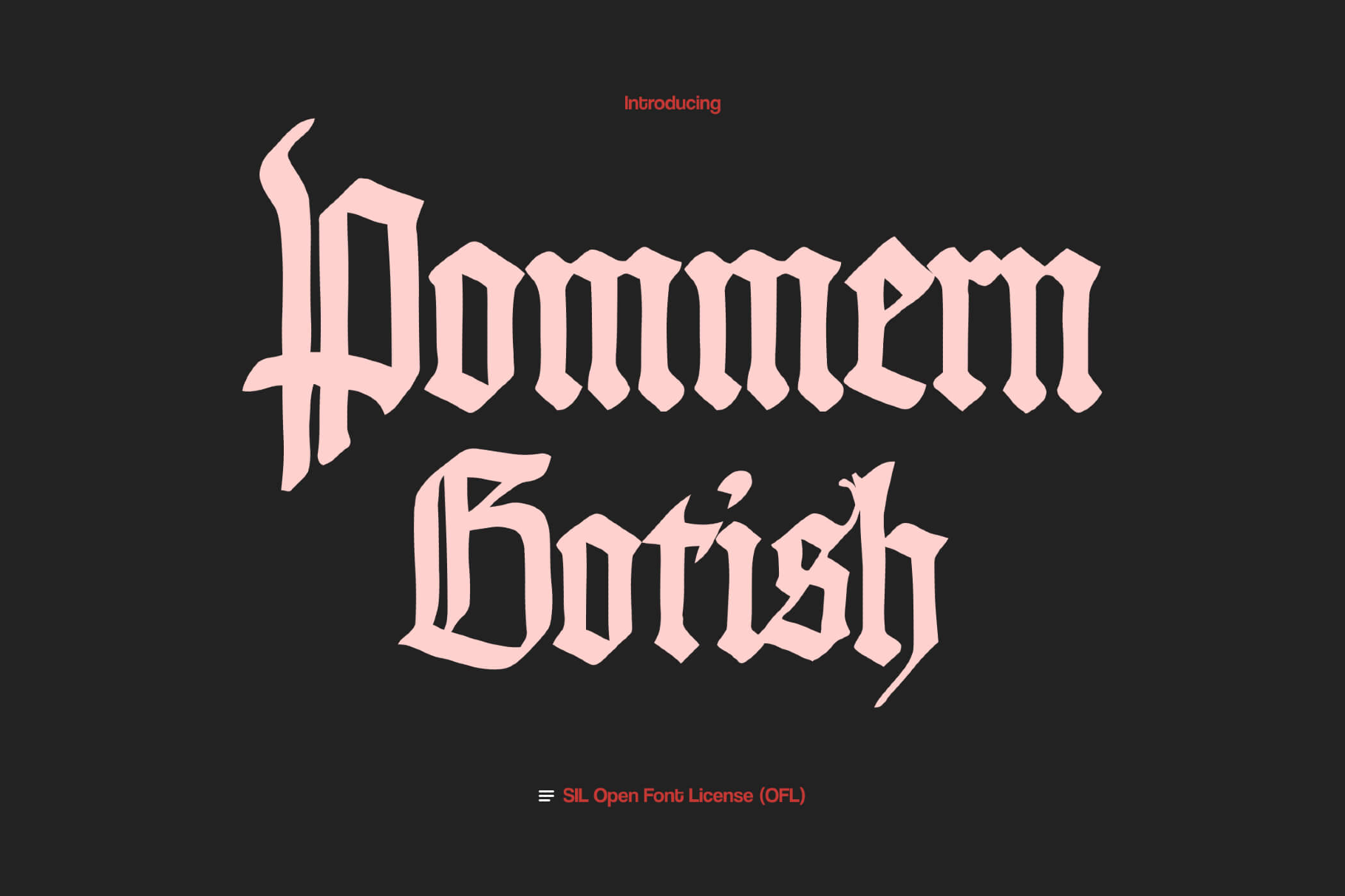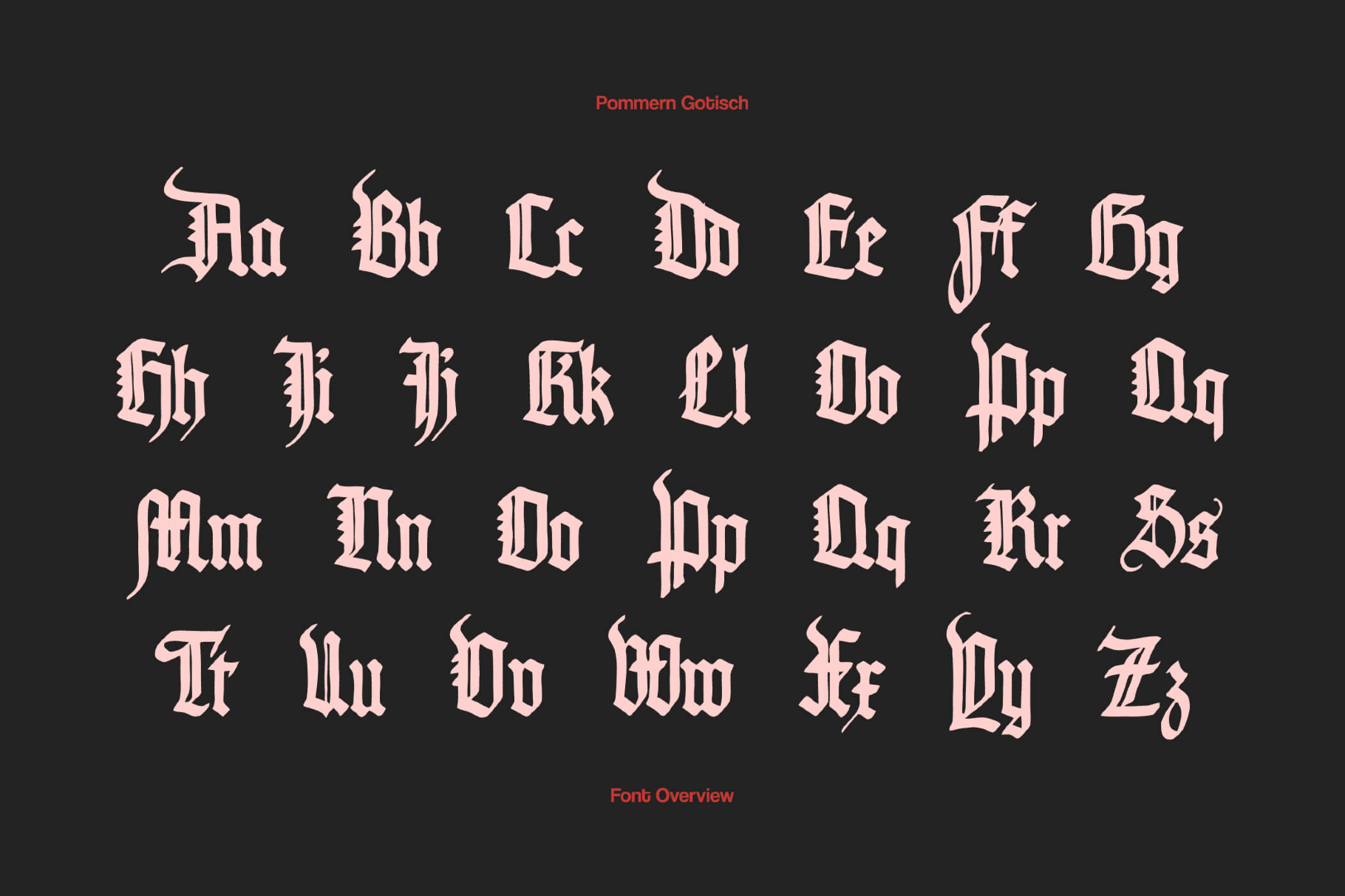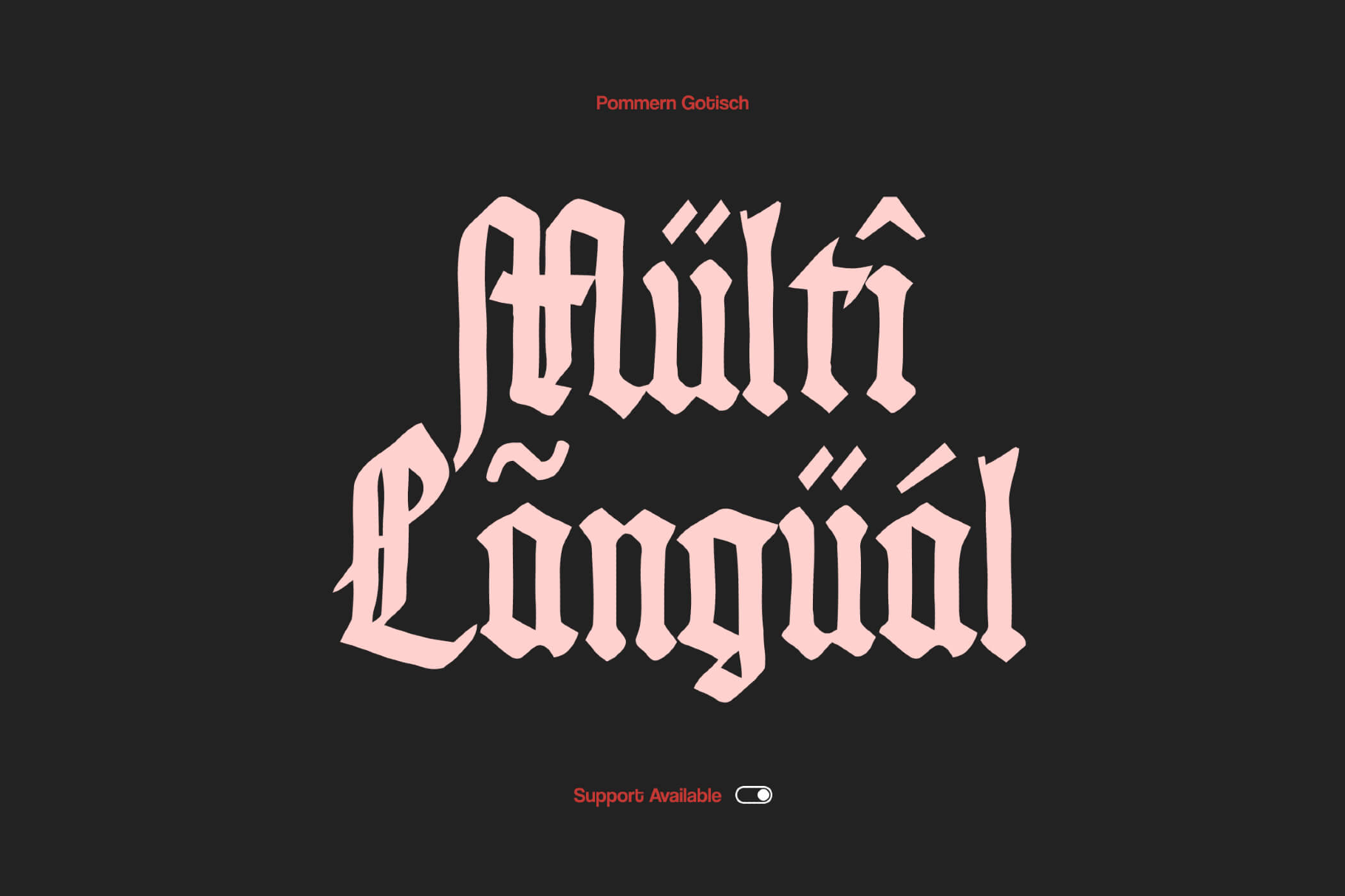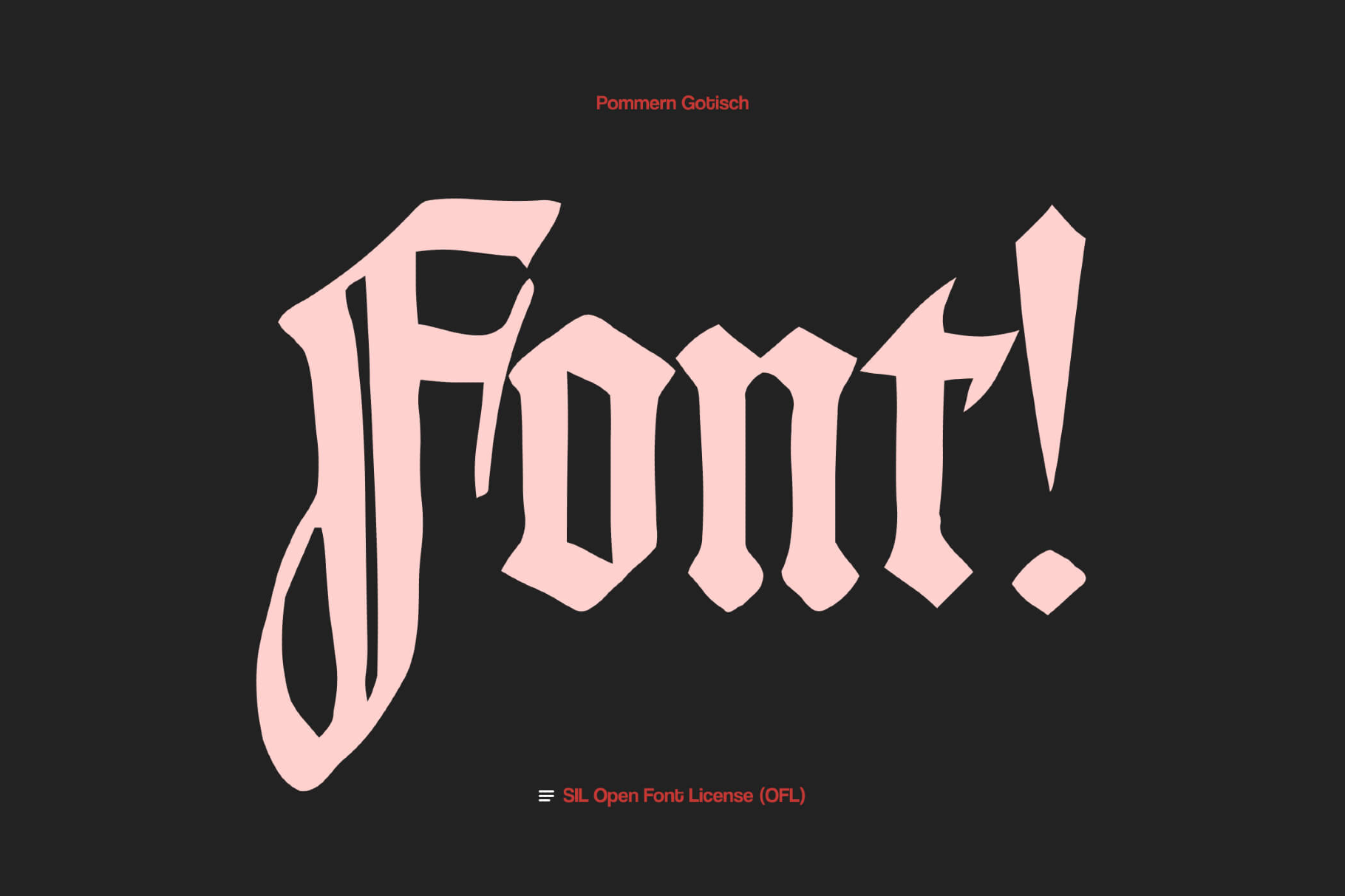
Pommern Gothic Font
The Pommern font has tall, compact proportions, blunt strokes, and flicked terminals. The slight irregularities from the original ink templates remain visible, with the purpose of making the lines feel handwritten rather than engineered. It was achieved thanks to vectorization, which preserved the subtle quirks of the original pen-and-ink strokes.
Use it for book jackets in horror or fantasy genres, album covers for metal or darkwave bands, and lettering for occult or historical zines. The typeface suits wordmarks for tattoo studios, craft beer or spirits labels, and identity work for barbershops or niche fashion brands. Posters for themed nights, festival graphics, in-game titles for medieval or dark RPG projects, social media artwork, and more.